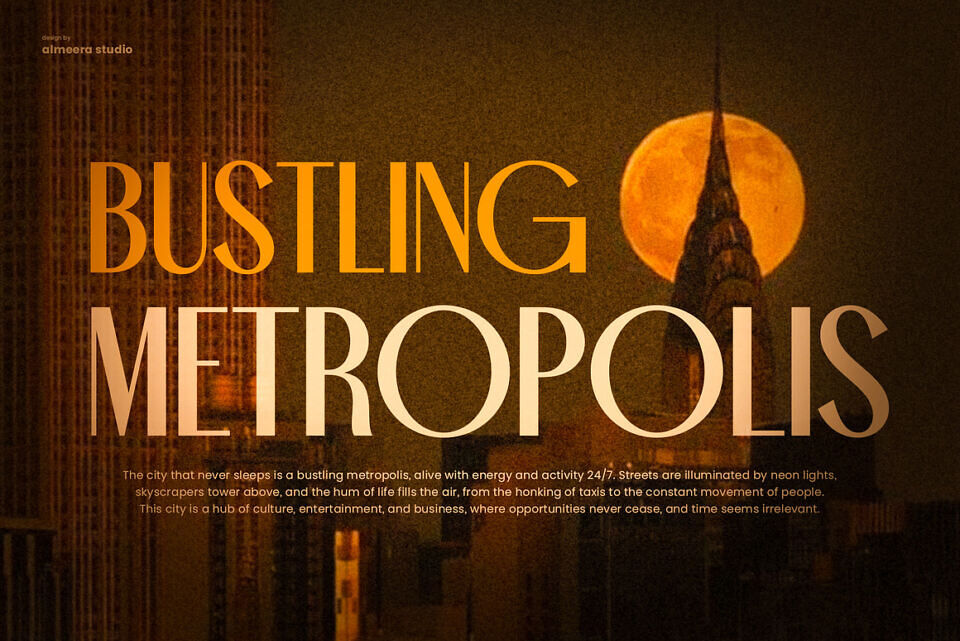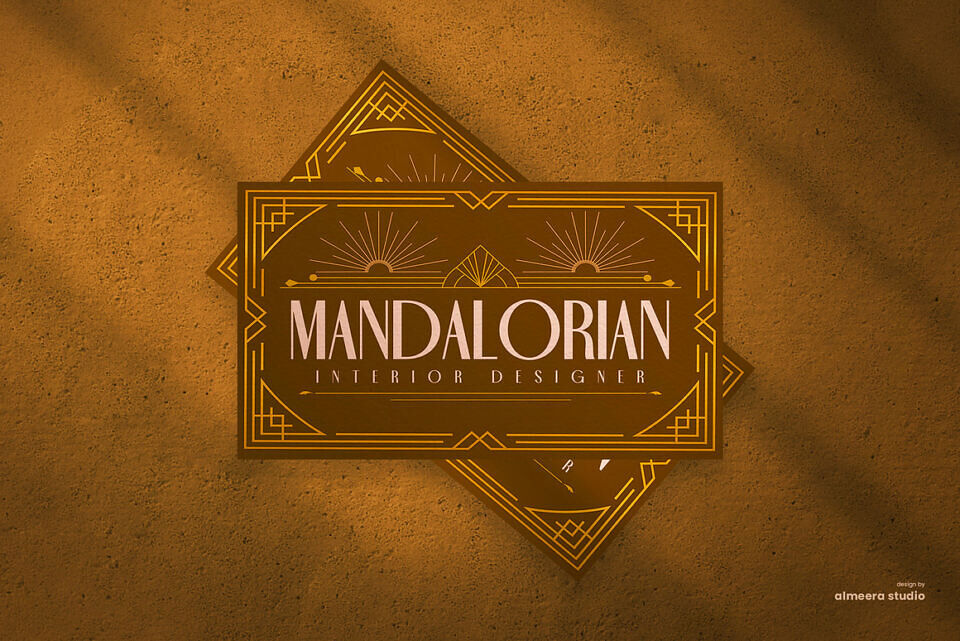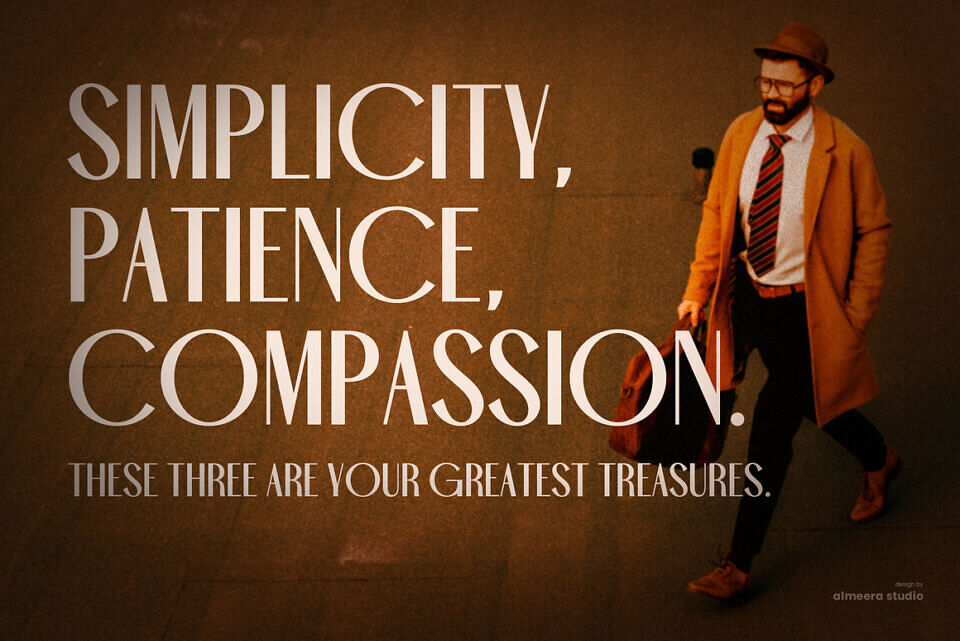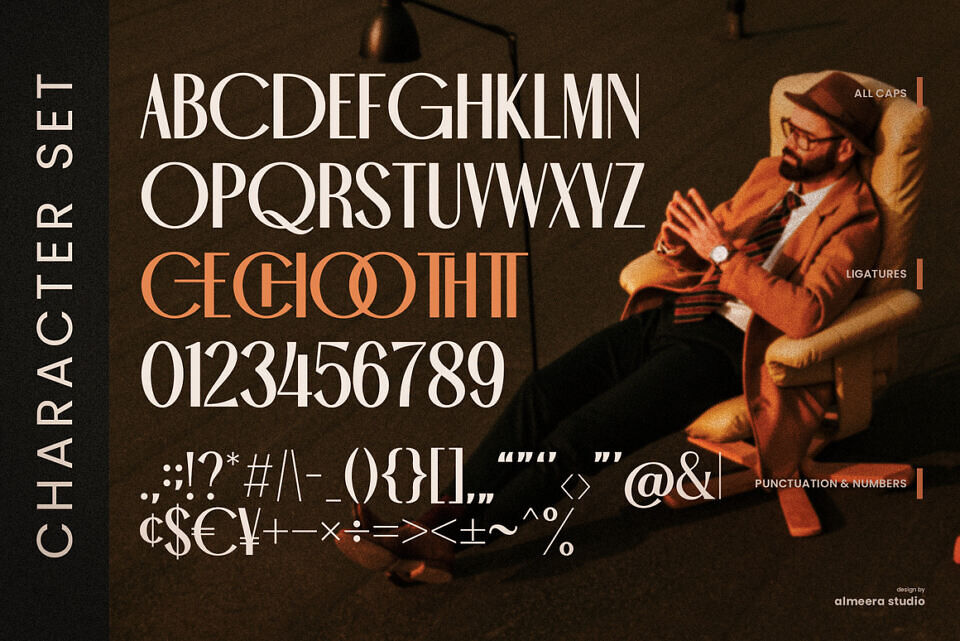
Charlie Brown Font
Introducing Charlie Brown, an elegant modern sans crafted by Almeera Studio. Charlie Brown is a modern, elegant and simple font, best used as a display for headings, logos, branding, magazines, product packaging and invitations.